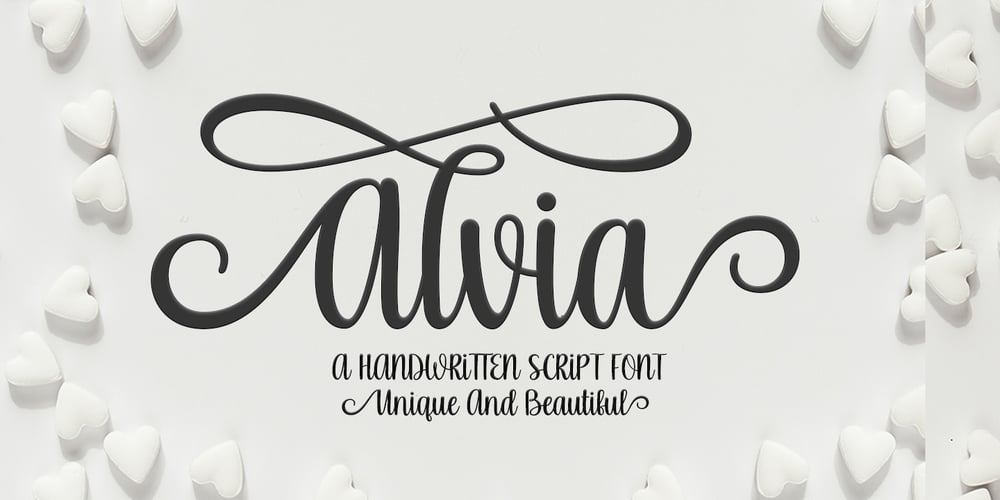
Alvia Font Family was designed by Mur Zani and published by Zane Studio. Alvia contains 1 styles and family package options. Alvia is a clean, modern script font that is carefully crafted with a touch of elegance. This font can be used to write letters, invitations, food products, headlines and more. It will turn any creative idea into a true work of art!